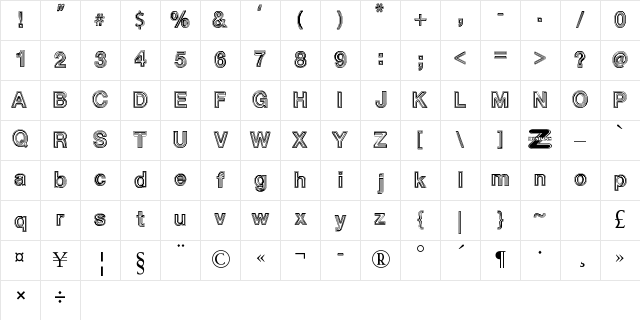
White Outlines Regular Free Font
White Outlines Regular
Design Context for White Outlines
White Outlines is built around its visual character rather than neutral utility - its distinctive forms are designed to make an impression at display sizes.
Font Pairing: Pair with a clean neutral sans-serif for body copy to let White Outlines's character lead without overwhelming the composition.
Pro Tip: Use White Outlines exclusively at display sizes - it was designed to be seen, not read at length. Let a neutral companion handle body copy.